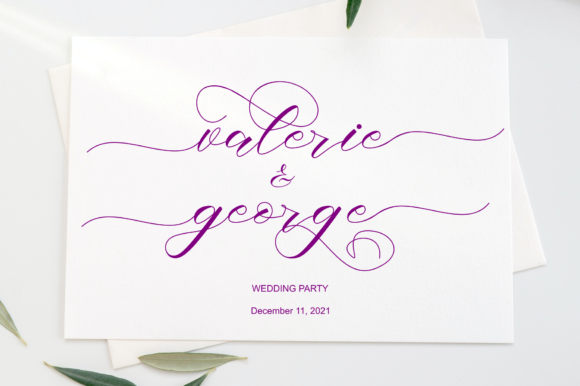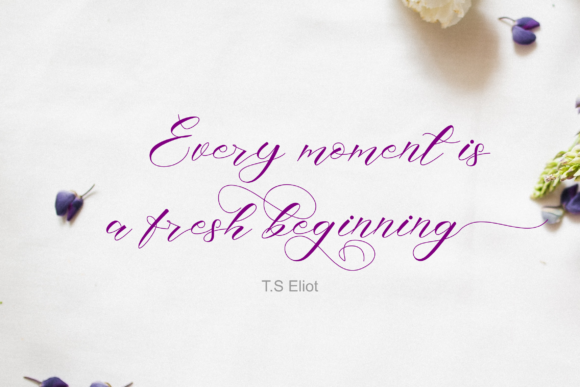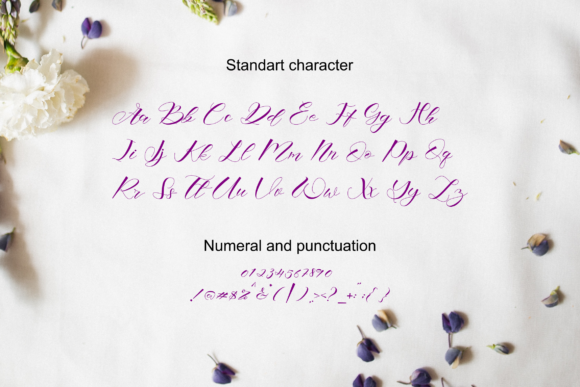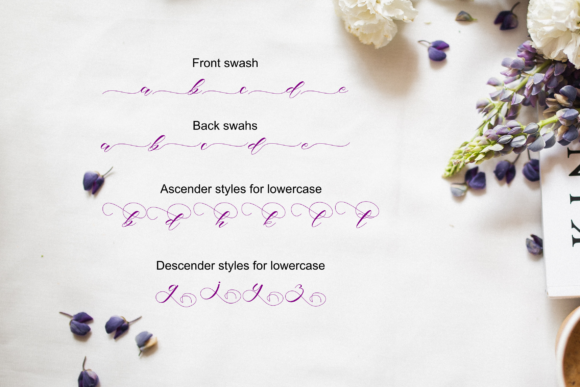
Introducing Adelina Font: The Epitome of Elegance and Sophistication
In the world of typography, few fonts manage to convey the essence of luxury and refinement as effortlessly as Adelina Font. This exquisite script font is a masterclass in elegance, designed to elevate any project to new heights of sophistication. Whether you’re a designer, crafty entrepreneur, or simply someone with a keen eye for detail, Adelina Font is sure to captivate your audience and leave a lasting impression.
The Characteristics of Adelina Font
Adelina Font is characterized by its stylish alternates and ligatures, which set it apart from more mundane fonts. Its refined script style exudes a sense of luxury and poise, making it the perfect match for projects that demand a high level of sophistication. From wedding invitations and branding materials to packaging and advertising, Adelina Font is the ultimate choice for those seeking to make a statement.
PUA Encoding: Unlocking Endless Creative Possibilities
One of the standout features of Adelina Font is its PUA (Private Use Area) encoding. This means that users can access all the glyphs and swashes with ease, unlocking a world of creative possibilities. With PUA encoding, designers can effortlessly navigate the font’s extensive character set, incorporating intricate details and flourishes that elevate their work to new heights.
Why Designers and Crafters Love Adelina Font
So, what makes Adelina Font a favorite among designers and crafters? For starters, its versatility is unmatched. Whether you’re working on a logo, brochure, or social media graphics, Adelina Font adapts seamlessly to any design brief. Its elegant script style and extensive character set also make it an excellent choice for:
- Wedding and event planning materials
- Luxury branding and packaging
- Stationery and greeting cards
- Fashion and beauty marketing materials
Tips for Getting the Most Out of Adelina Font
To truly harness the power of Adelina Font, here are a few expert tips:
- Experiment with different swashes and ligatures to add a personal touch to your designs.
- Pair Adelina Font with complementary fonts to create striking visual contrast.
- Don’t be afraid to push the boundaries of typography – Adelina Font’s PUA encoding makes it easy to get creative!
In conclusion, Adelina Font is a game-changer for designers and crafters seeking to infuse their work with elegance and sophistication. Its stylish alternates, ligatures, and PUA encoding make it an incredibly versatile and powerful font that can elevate any project. Whether you’re a seasoned pro or just starting out, Adelina Font is sure to become a staple in your design arsenal. So why wait? Discover the beauty of Adelina Font today and unlock a world of creative possibilities!